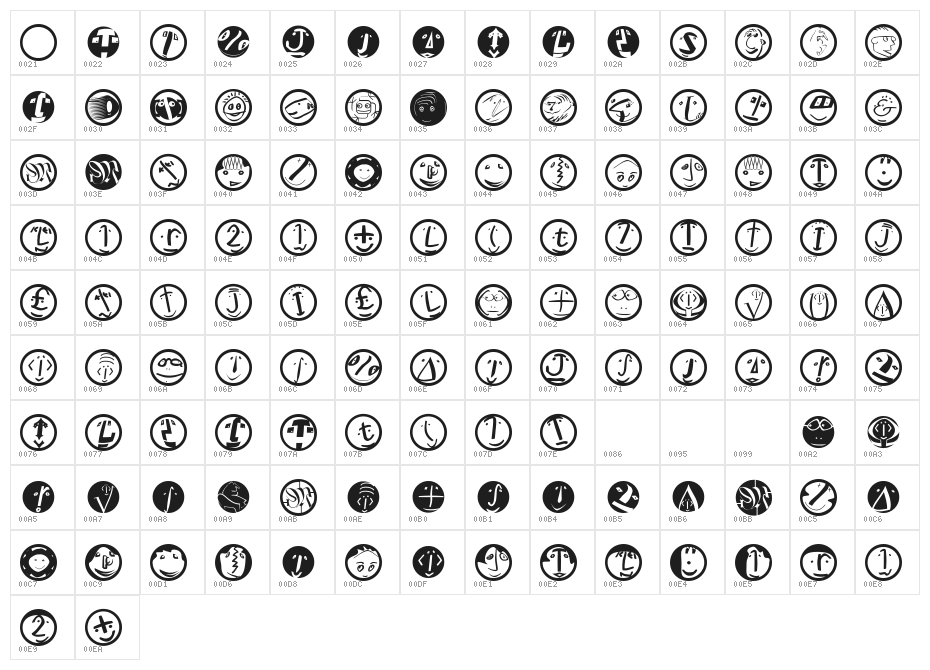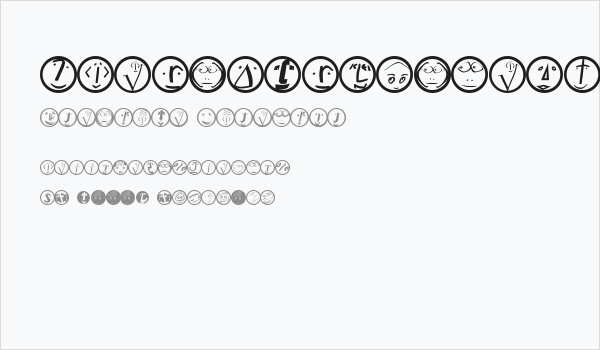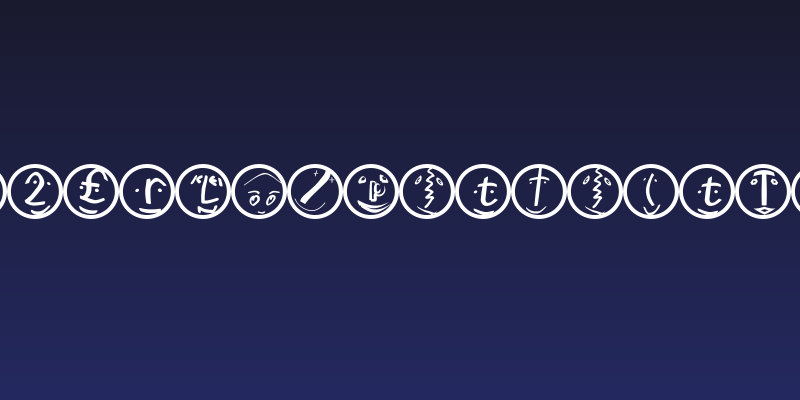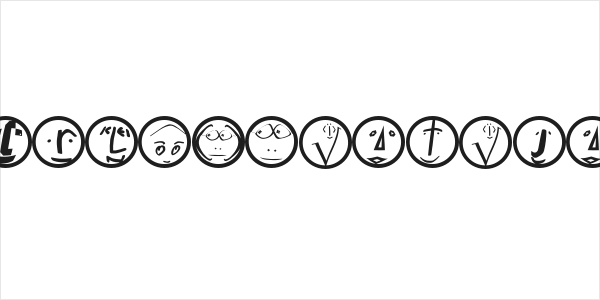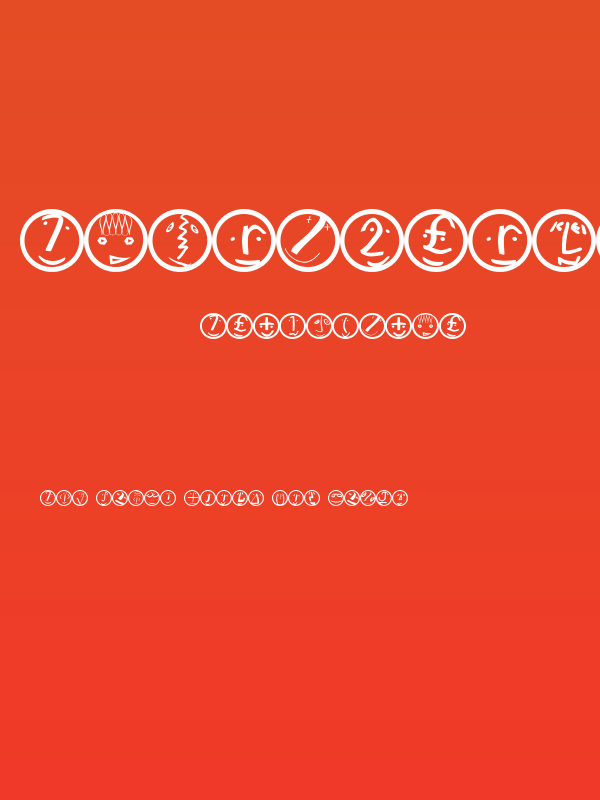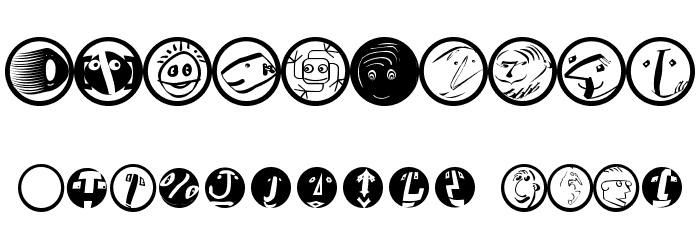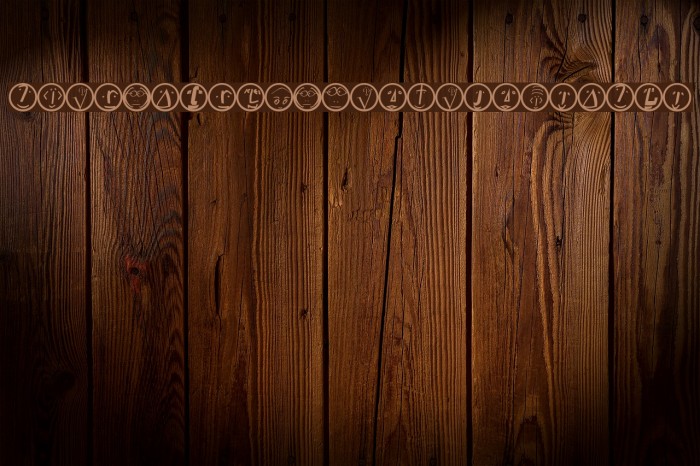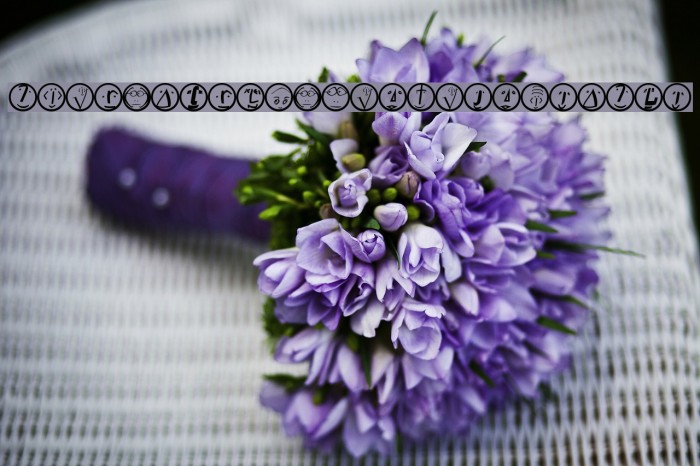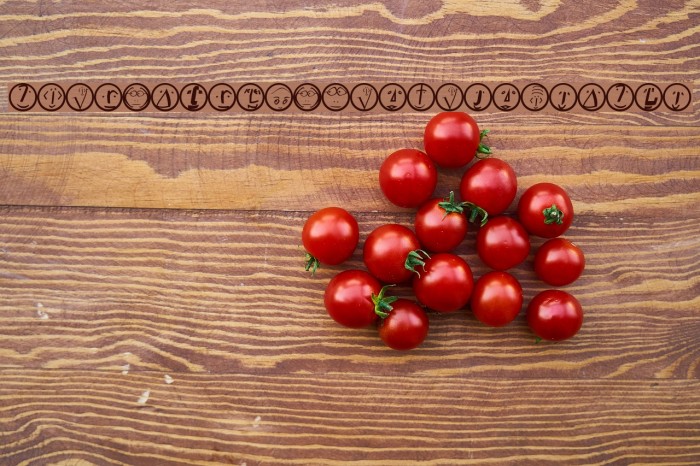
TheManyMKFacesVersionTwo Font
TheManyMKFacesVersionTwo Description
This is a decorative and playful font where each character is represented by a unique face illustration. The design is highly creative, with each letter and number featuring distinct facial expressions and styles, enclosed within circular borders. The font is visually engaging and whimsical, making it ideal for projects that require a fun and artistic touch. The characters are bold and have a consistent circular shape, which adds to the uniformity despite the varied facial designs. The font's unique style makes it stand out, perfect for capturing attention in creative projects.
| Use Case | Headlines, Logos, Artistic projects |
| Proposed Projects | Ideal for children's books, playful branding, creative posters, and artistic projects. |